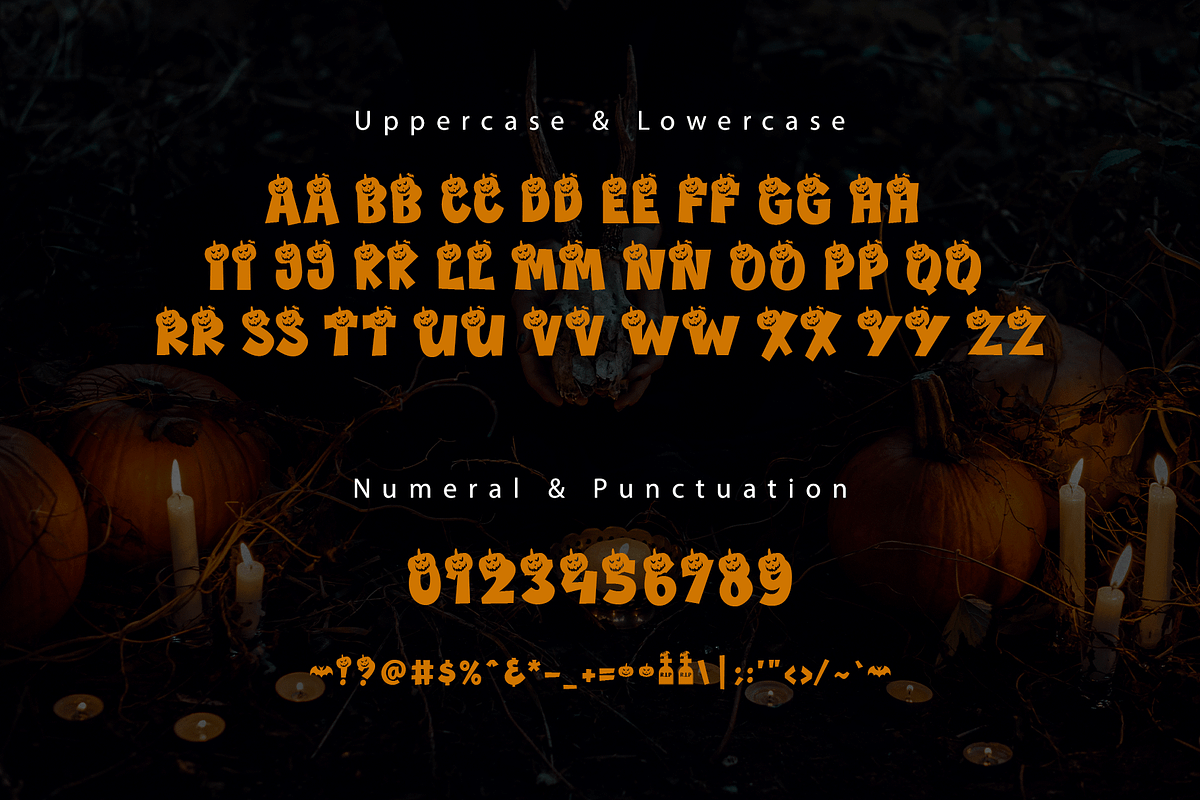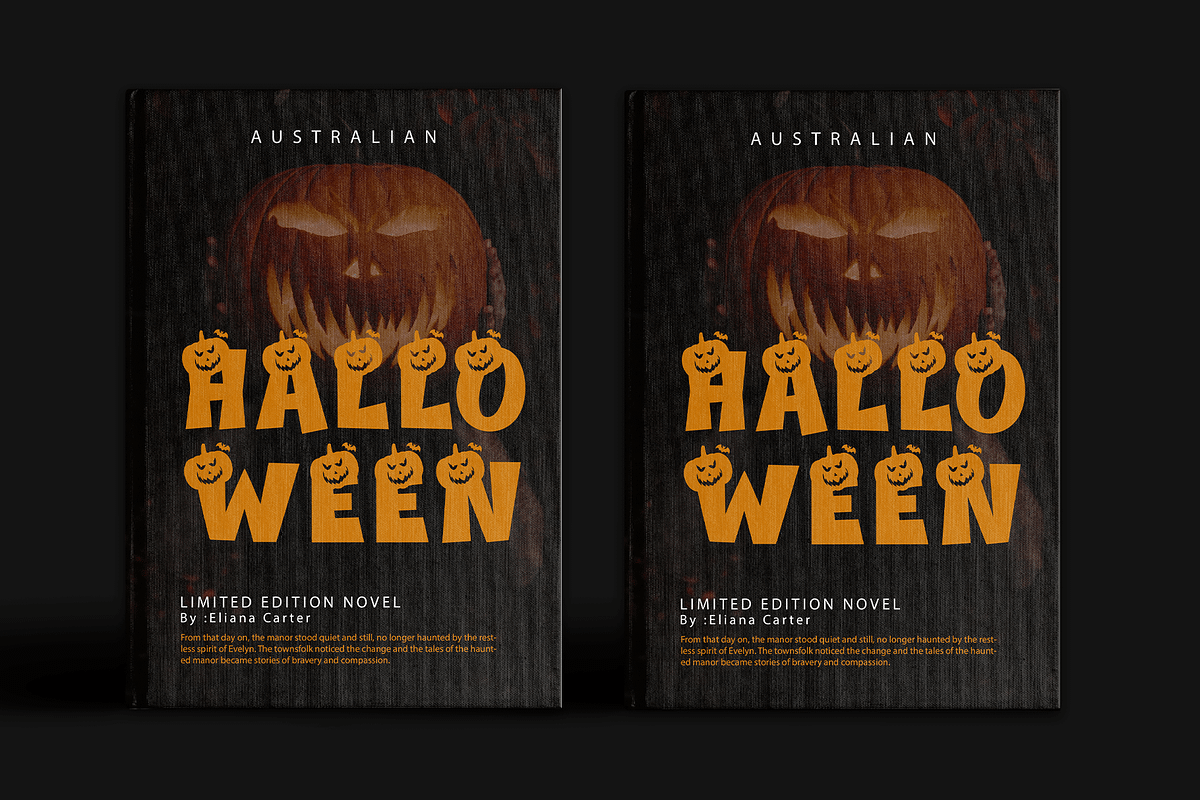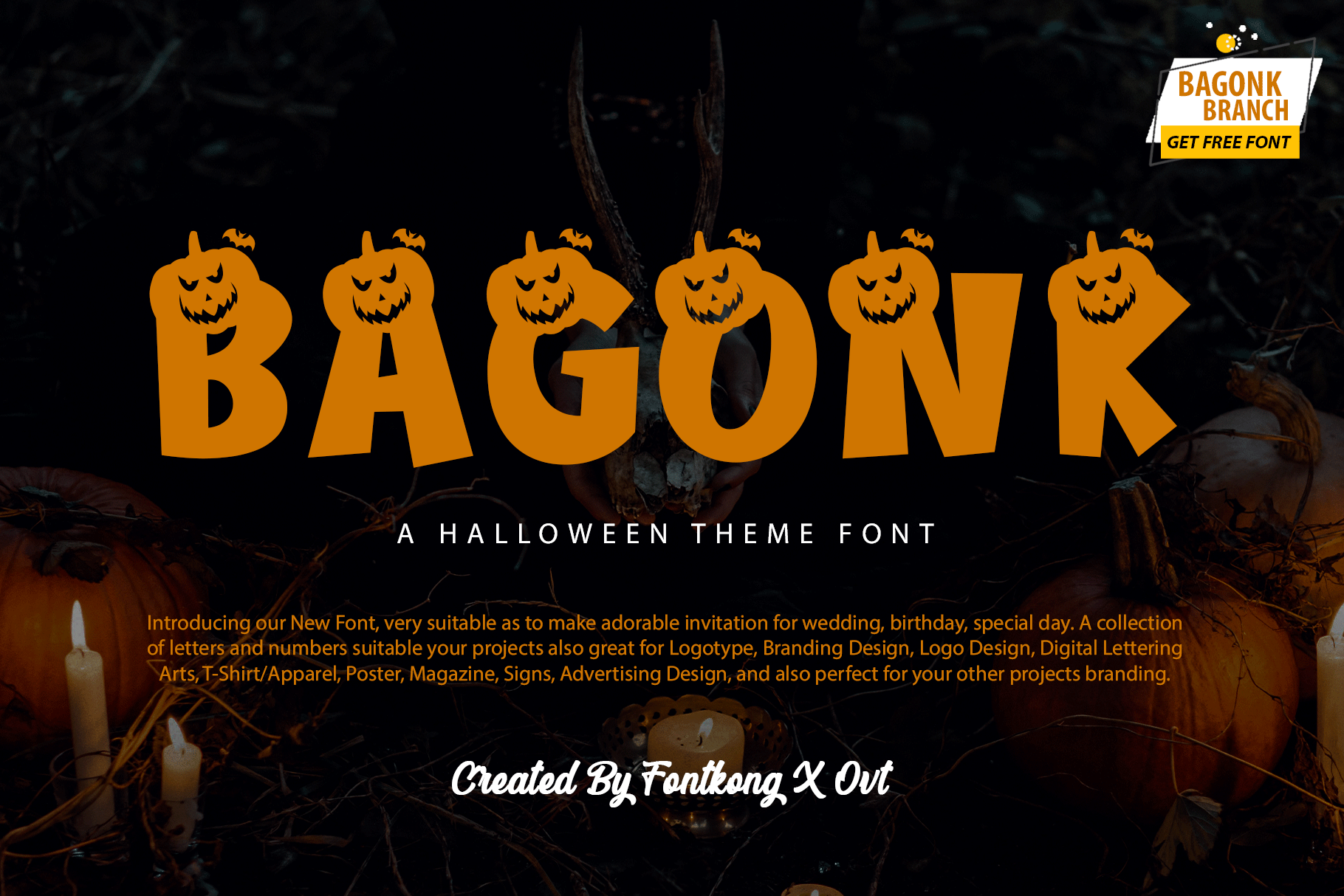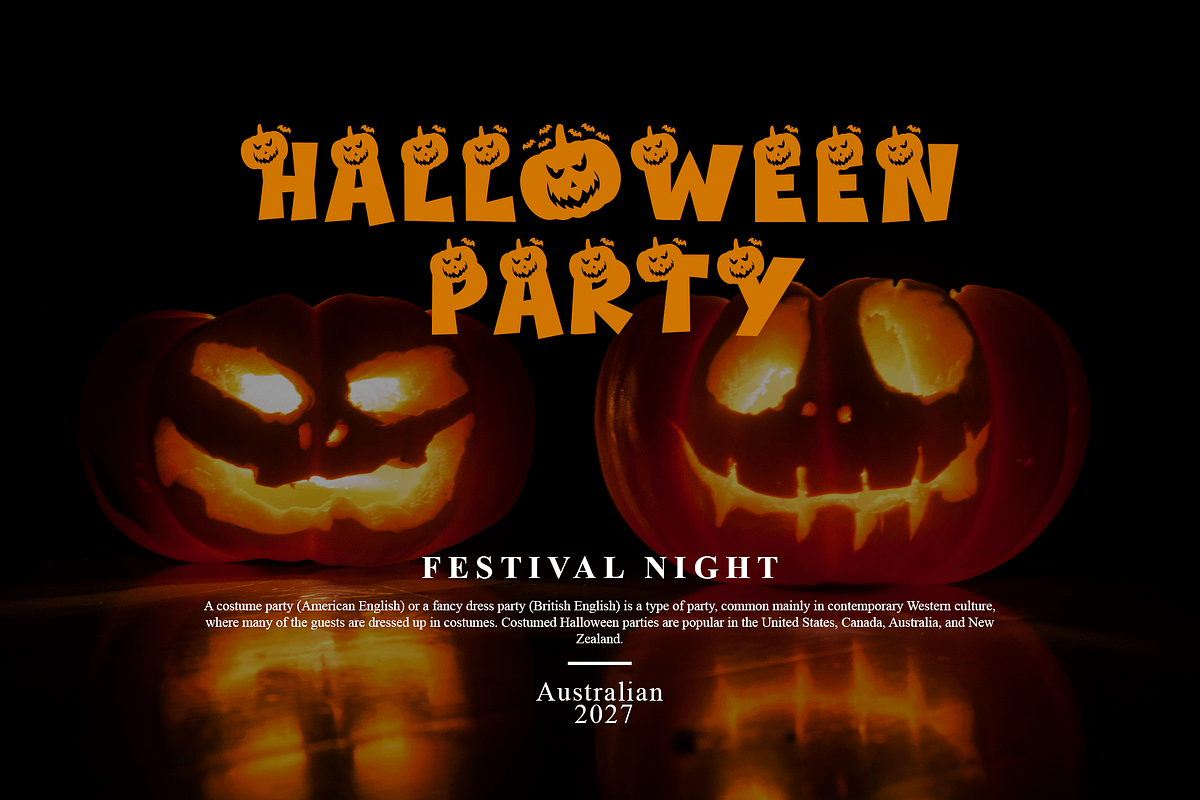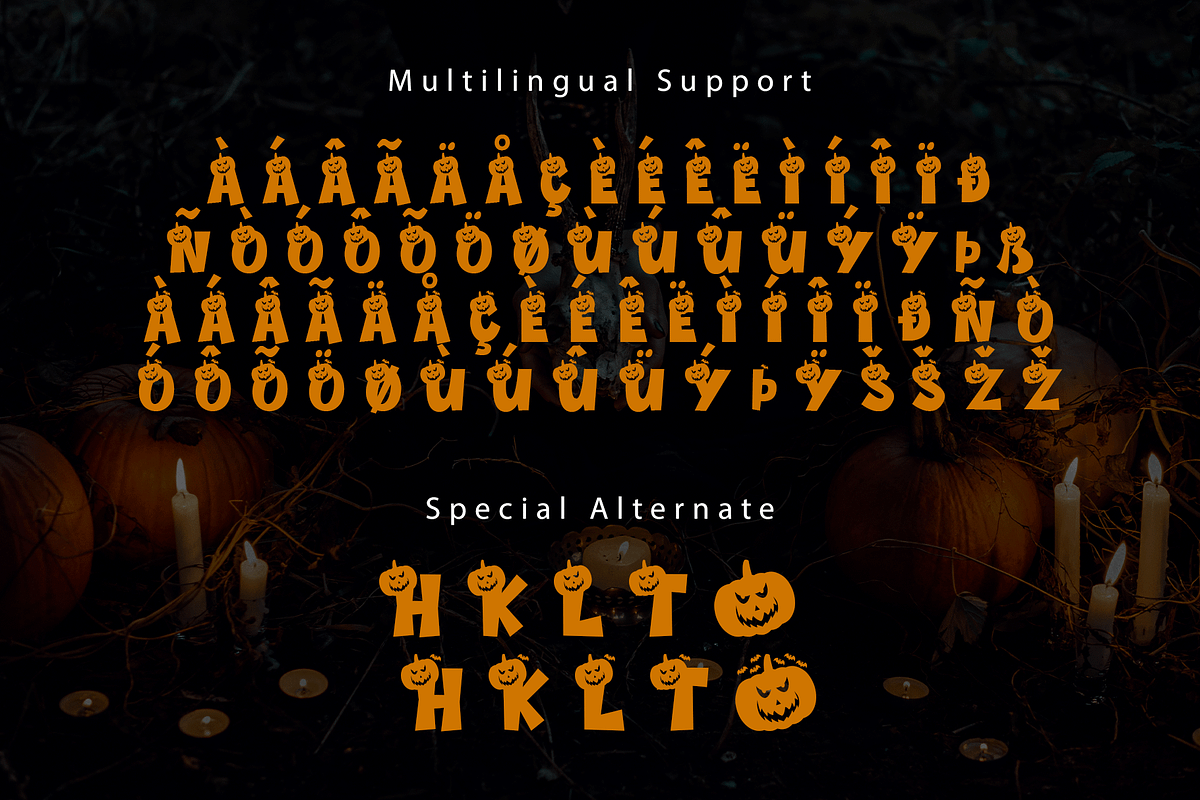
Bagonk - A Halloween Theme Font
Bagonk is a spooky and playful Halloween-themed font designed to bring a festive and eerie touch to your seasonal design projects. With its whimsical and haunted letterforms, Bagonk is perfect for Halloween party invitations, spooky posters, themed merchandise, and eerie social media graphics. This font captures the essence of Halloween, adding a sense of fun and fright to your creations.
Crafted with attention to spooky details, Bagonk features unique characters that ensure excellent readability while evoking a playful yet eerie vibe. Its distinctive design makes it ideal for headlines and display text, giving your work a memorable and ghostly presence. The font's versatility allows it to seamlessly fit into various design contexts, from digital platforms to printed materials.
Embrace the spooky season with Bagonk, a font that combines the thrill of Halloween with a touch of whimsy. Its unique style and adaptability make it an essential addition to any designer’s toolkit for creating standout and festive projects. Elevate your Halloween designs with Bagonk and let the spooky fun begin.